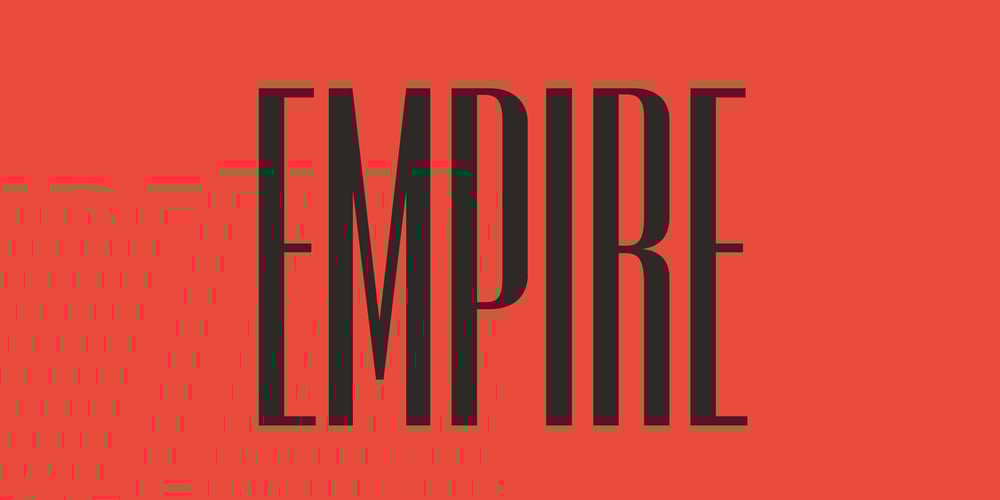
Empire Font Family was designed by David Berlow and published by Font Bureau. Empire contains 4 styles and family package options. In 1937, Morris Fuller Benton designed Empire, titling capitals that became the headline style for Vogue magazine. In 1989, David Berlow revived it for Publish magazine, adding an italic and a lowercase, both unavailable in the original. He revisited Empire in 1994 with Kelly Ehrgott Milligan, adding two heavier weights, small caps, and an elegant set of Art Deco–flavored oldstyle figures, ultimately expanding it to a seven-part series; FB 1989–94